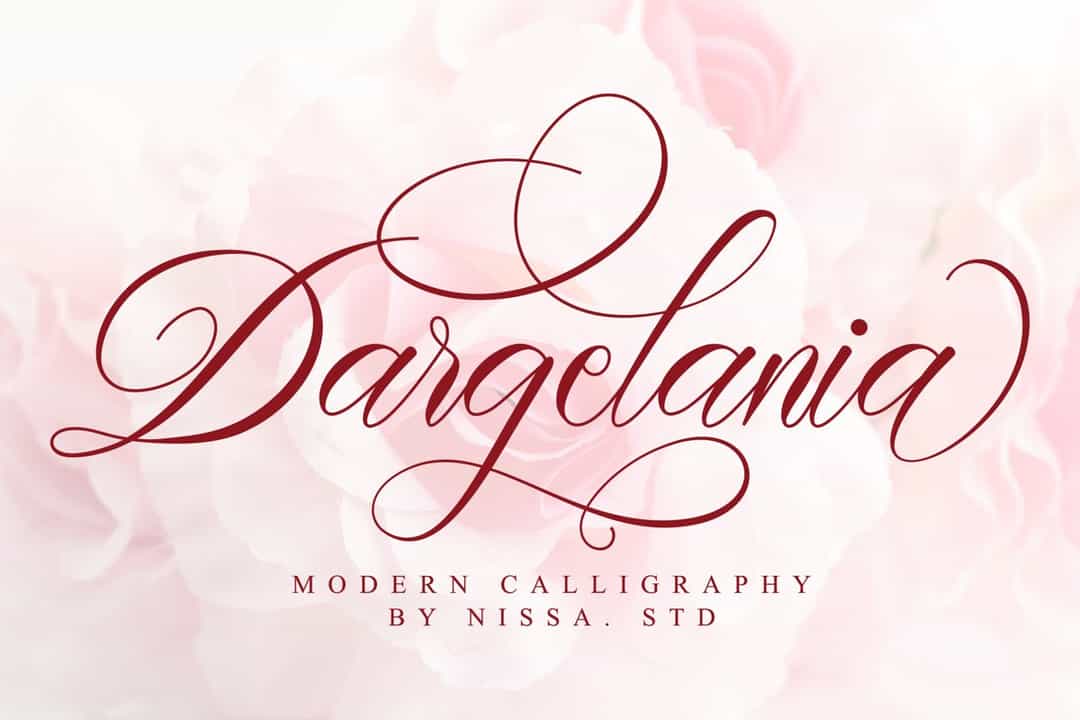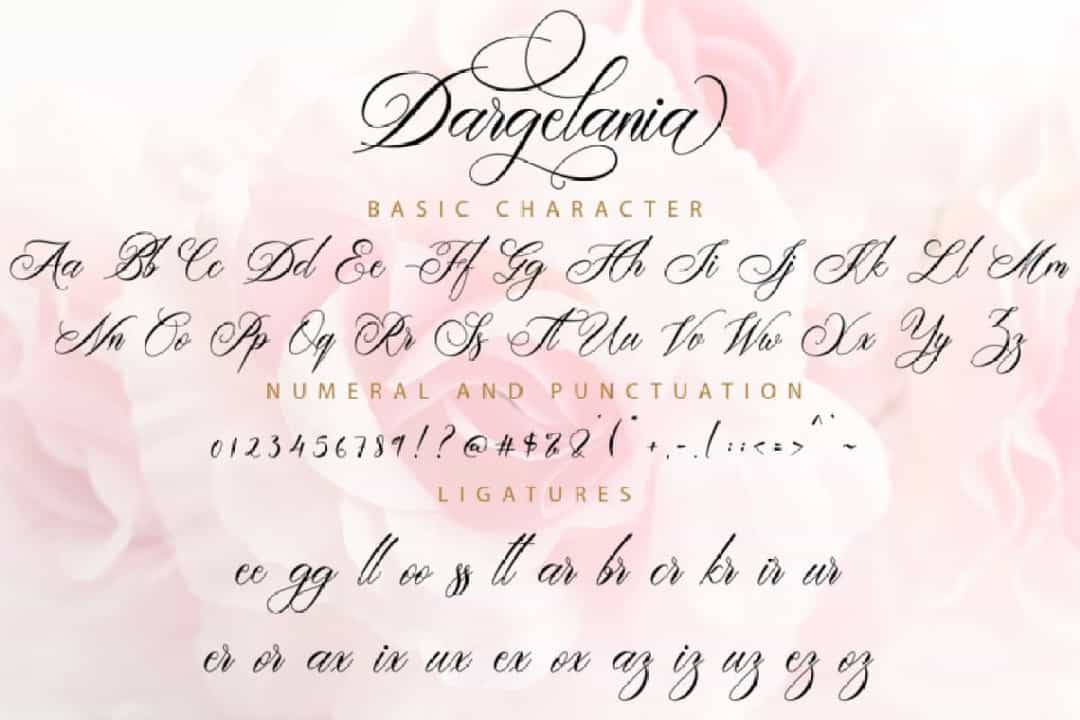
Dargelania seems to be rather mature and stylish as a script font. PUA encoded, you are able to use all characters and washes without any problem! Also, it has a versatile baseline with beautiful and smooth lines along with great alternates as well as stunning glyphs for better legibility.